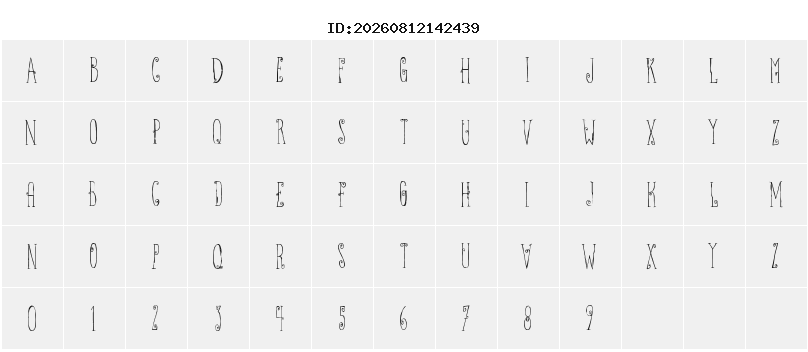
• Font Name: Ritornelos
• Designer: Ricardo Marcin & Erica Jung
About Ritornelos.ttf
Ritornelos.ttf is a modern, elegant sans-serif font designed for ultimate readability and visual harmony. Perfect for branding, headlines, web design, and print materials.